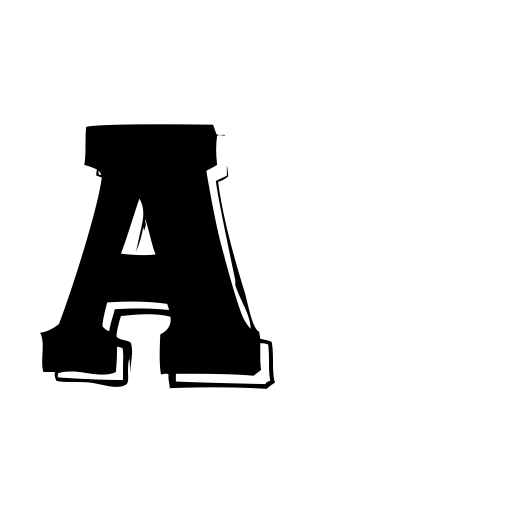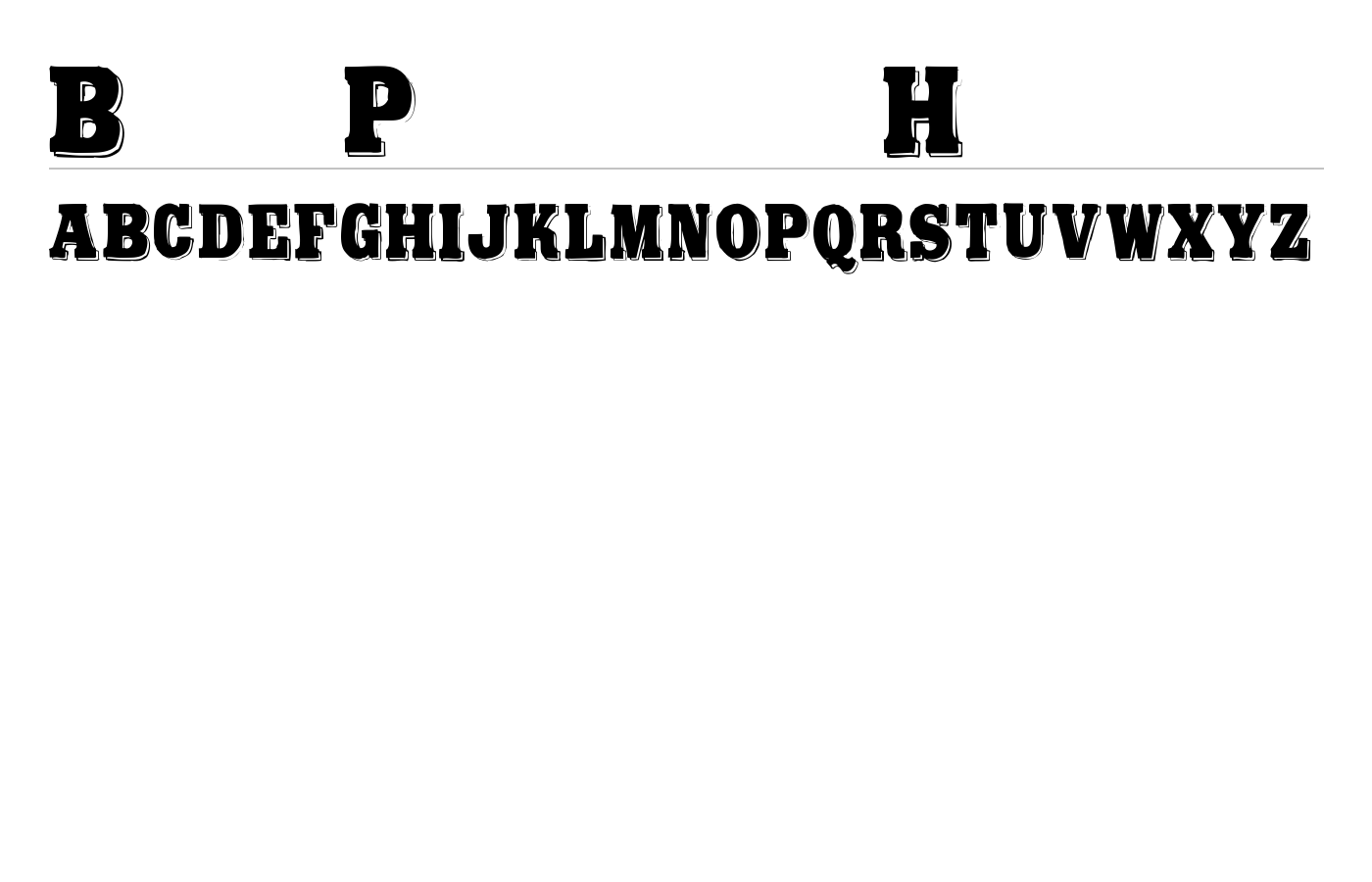
Bold Pressing H1 demo is a bold, slab serif font with strong, blocky letterforms that feature thick, bracketed serifs and high contrast between strokes. Its uppercase-only design exudes a vintage, rugged feel, making it ideal for attention-grabbing headlines, posters, and branding that aims to convey strength and impact. This font works best in large display settings where its unique, robust character can stand out.
Bold Pressing H1 demo Font
About Bold Pressing H1 demo Font